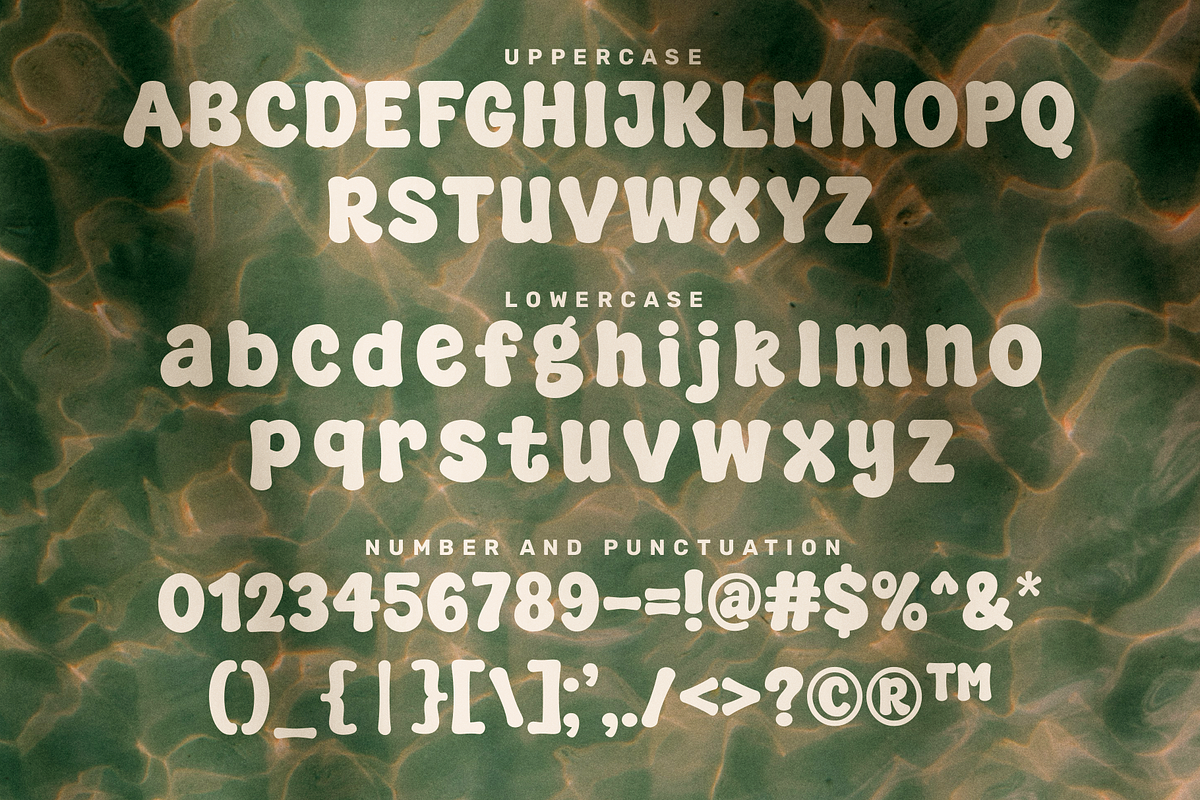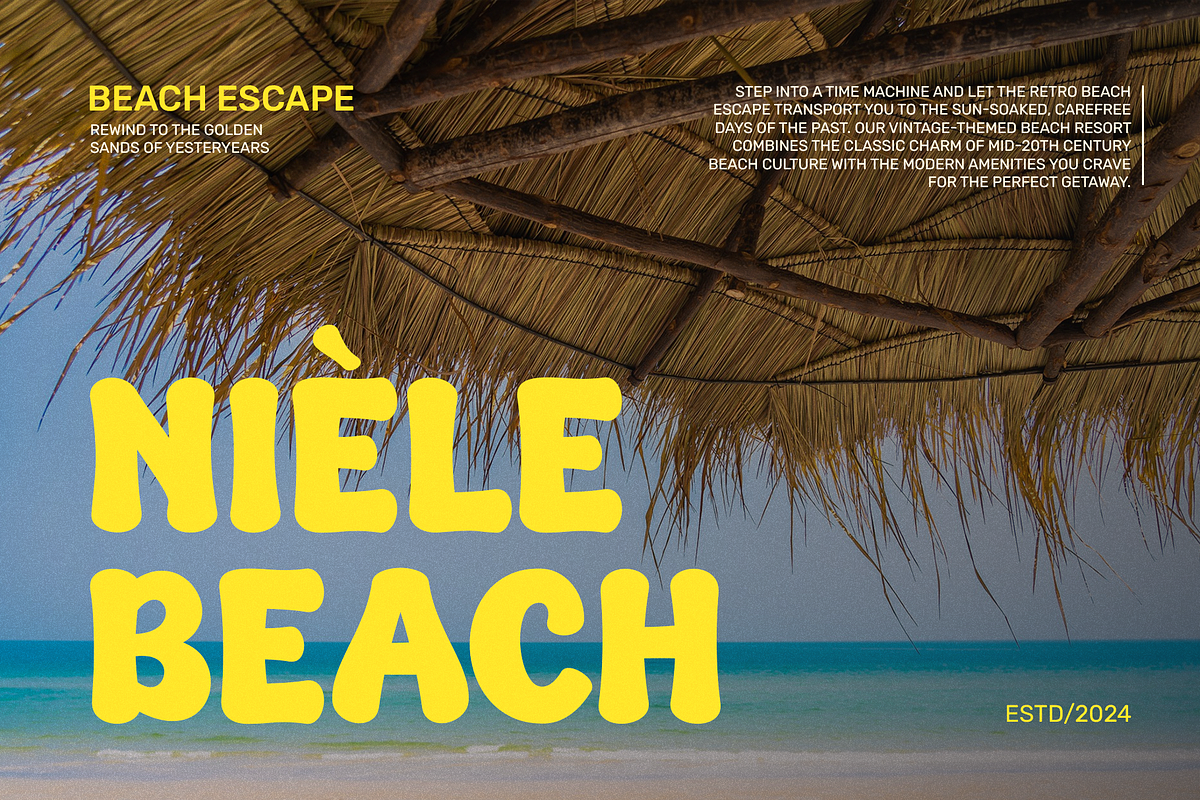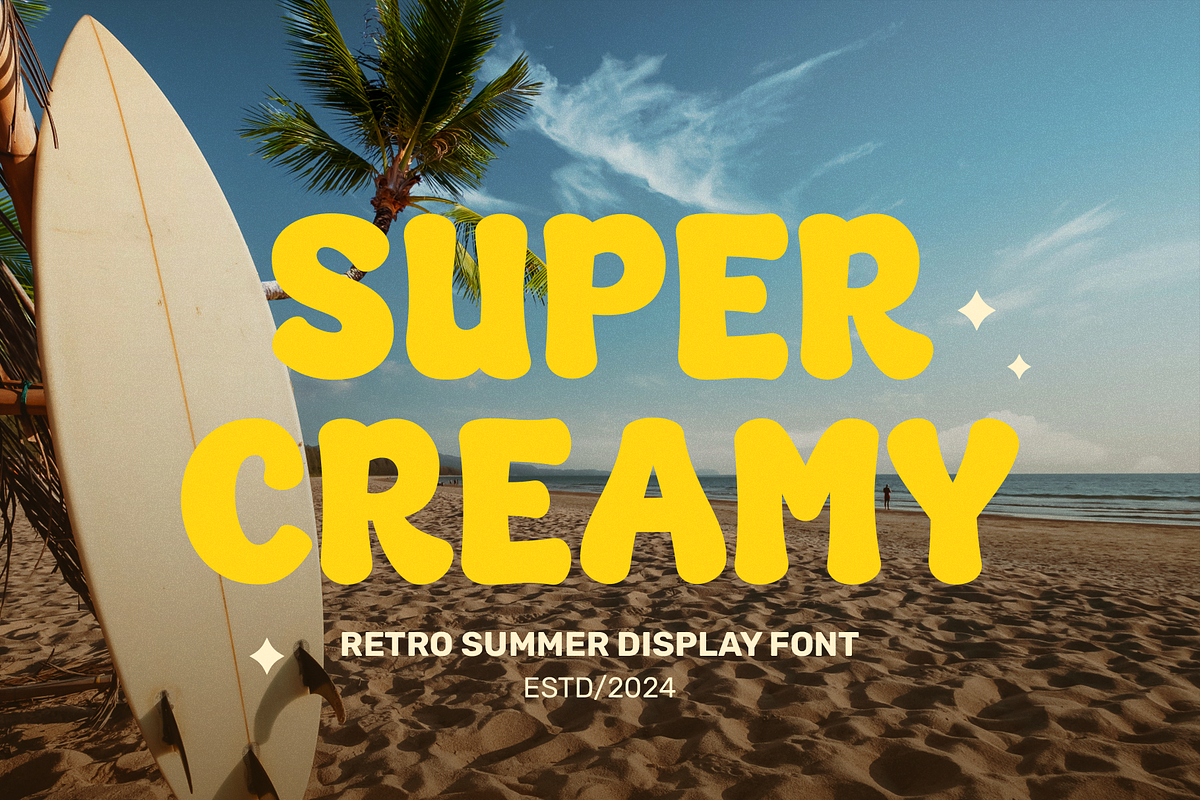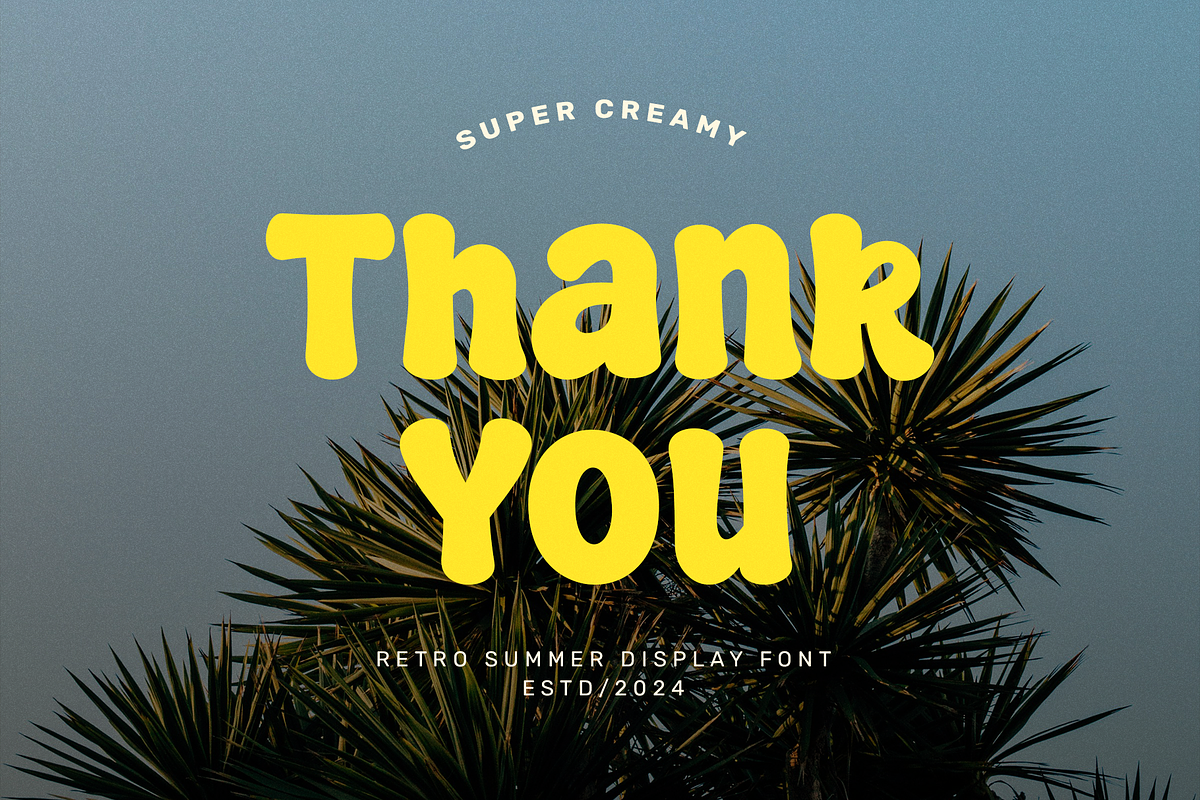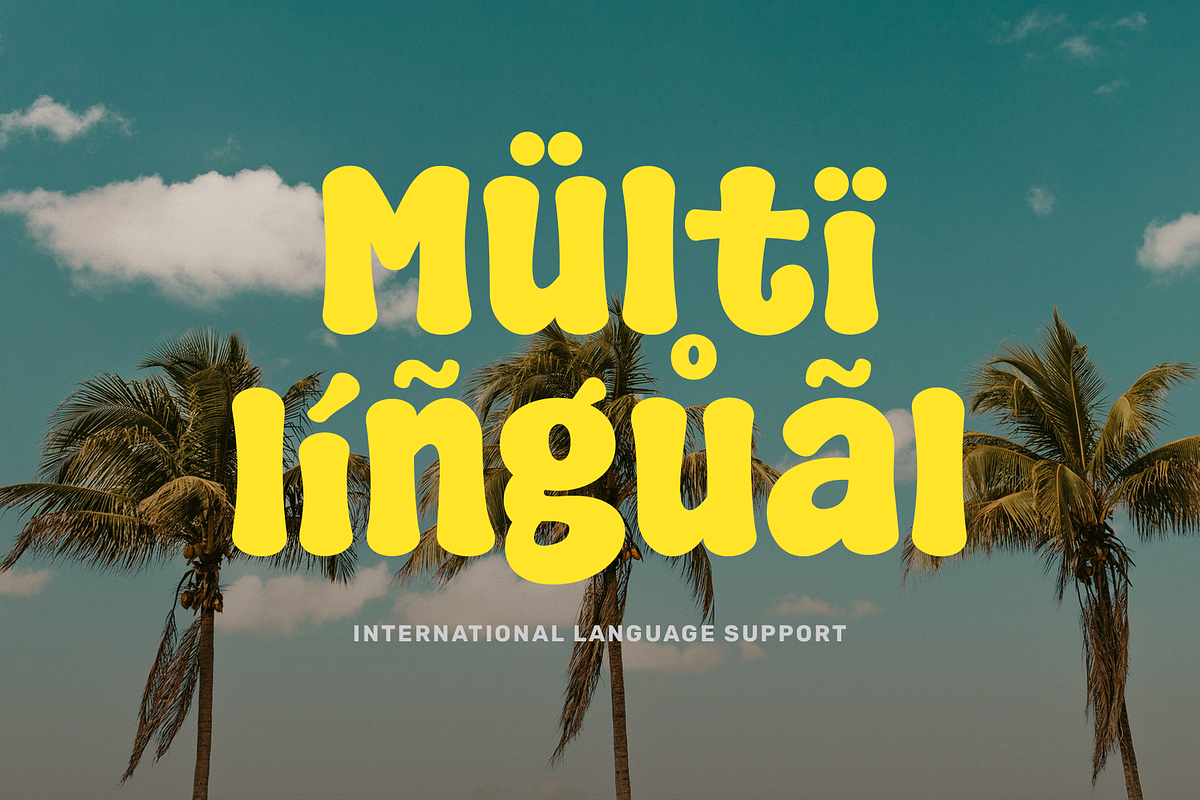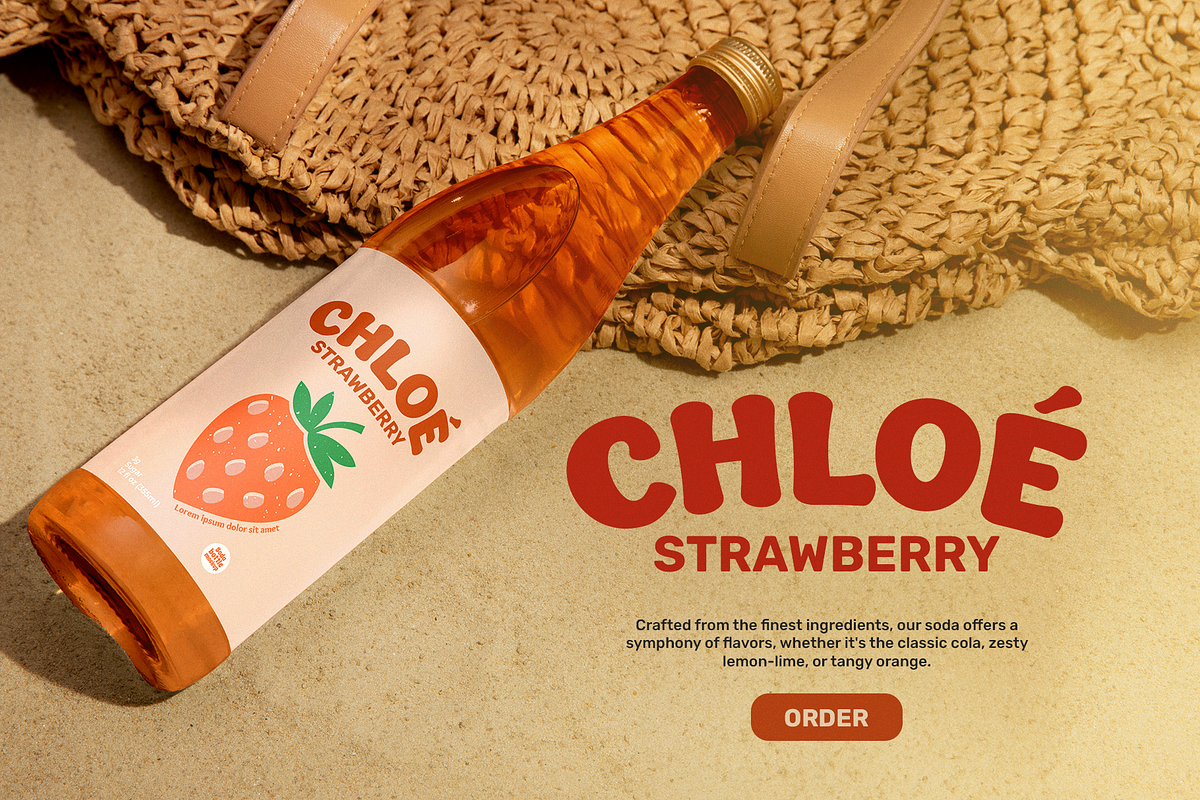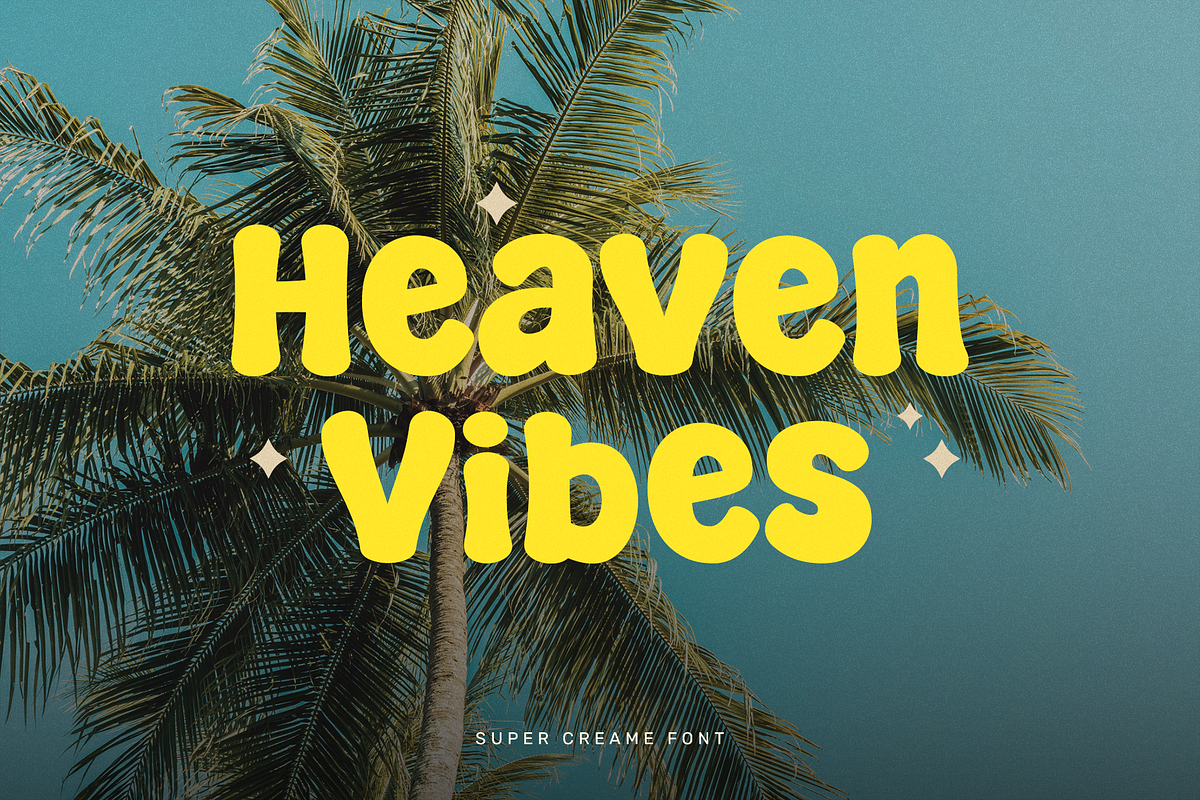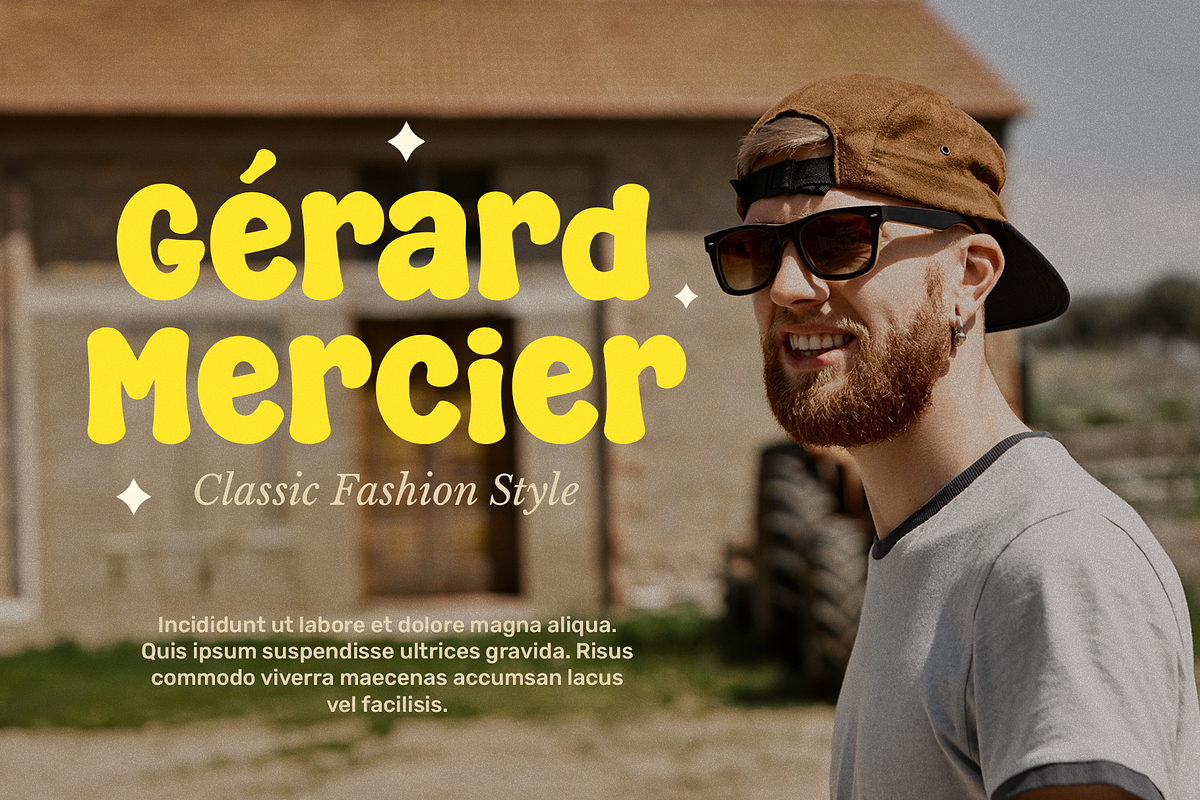
Super Creamy
Super Creamy: Dive into Delicious Design Super Creamy is a font that’s as delightful as its name. It combines playful round letters with a groovy, hand-drawn twist, creating a design that’s both bold and fancy.
Accent characters are included.